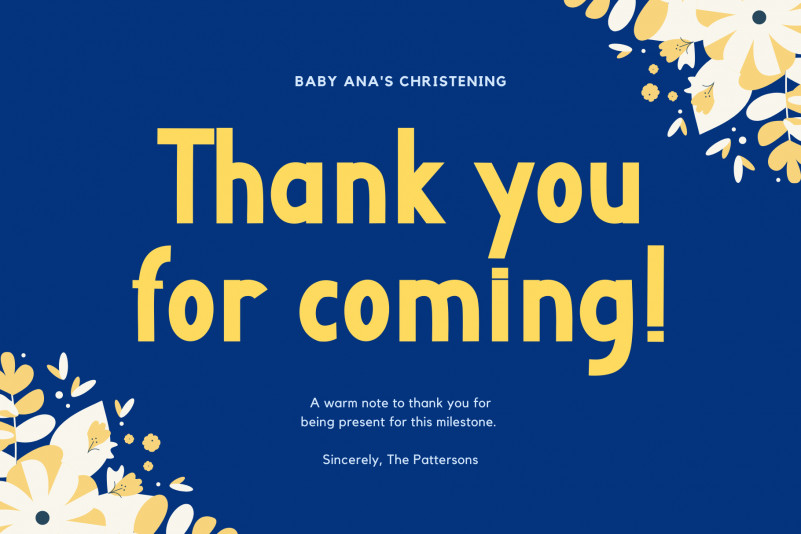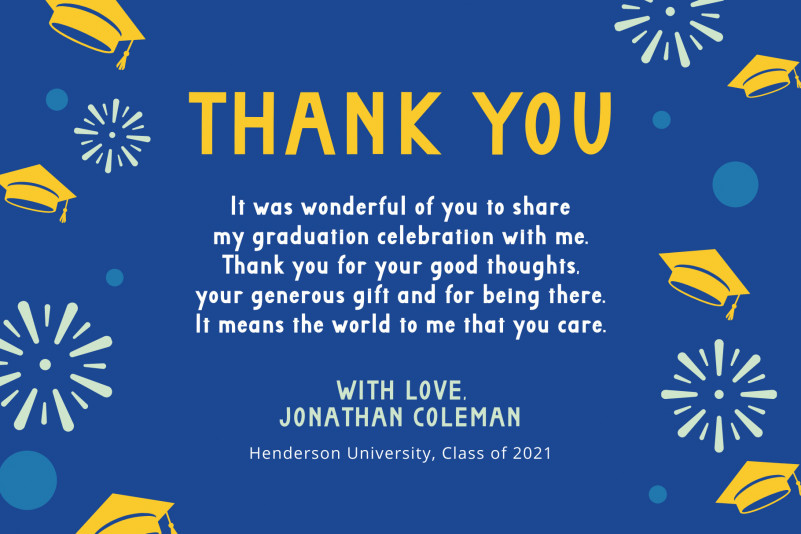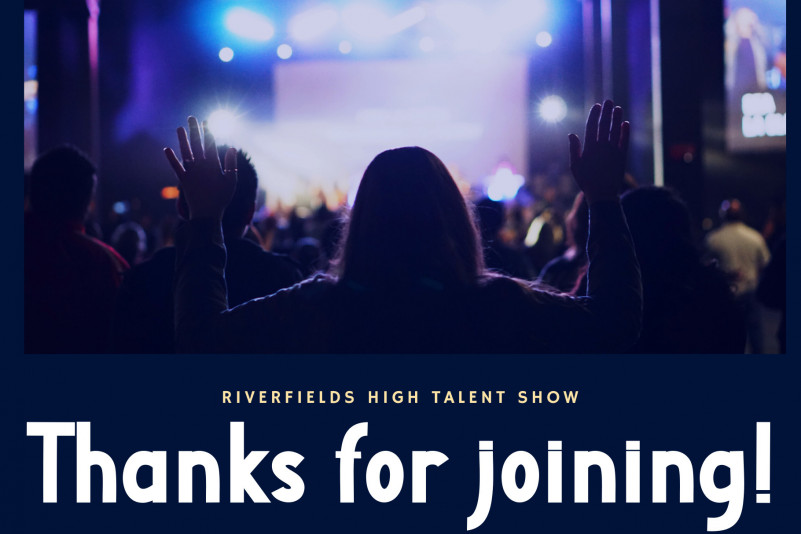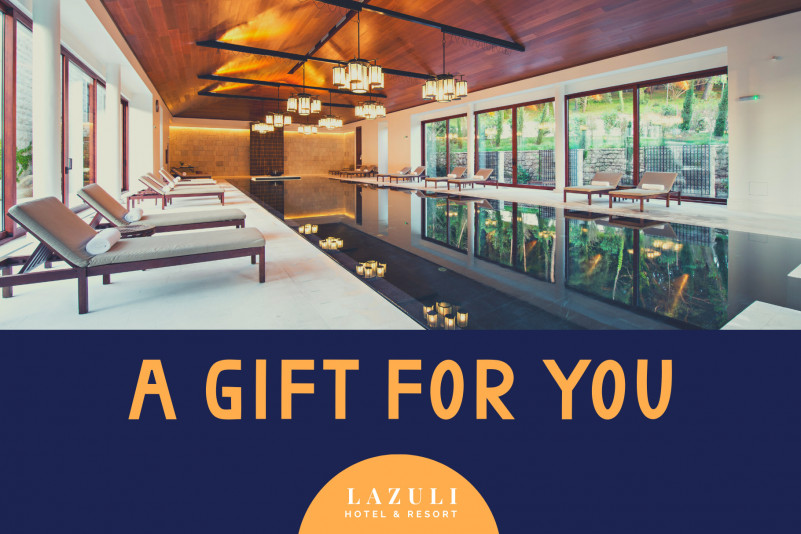
Mahartha Sans Serif Font
This font is very elegant and neat, so it can be used for all your work. “Mahartha” is equipped with ligatures, numeral and punctuations, uppercase, lowercase, and multilingual support. This font is very easy to use and apply. “Mahartha” is very suitable for seminars, business, promotions, logos, banners, branding, quotes, fashion, or other formal writing.